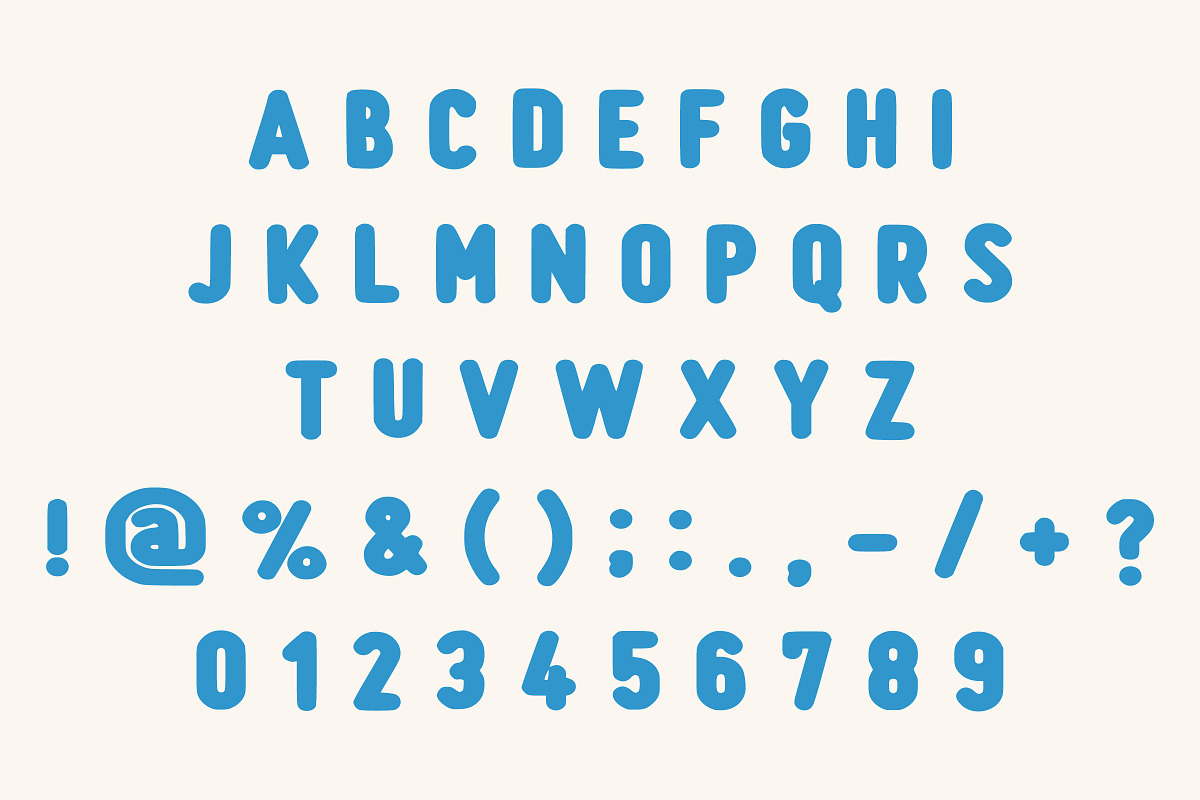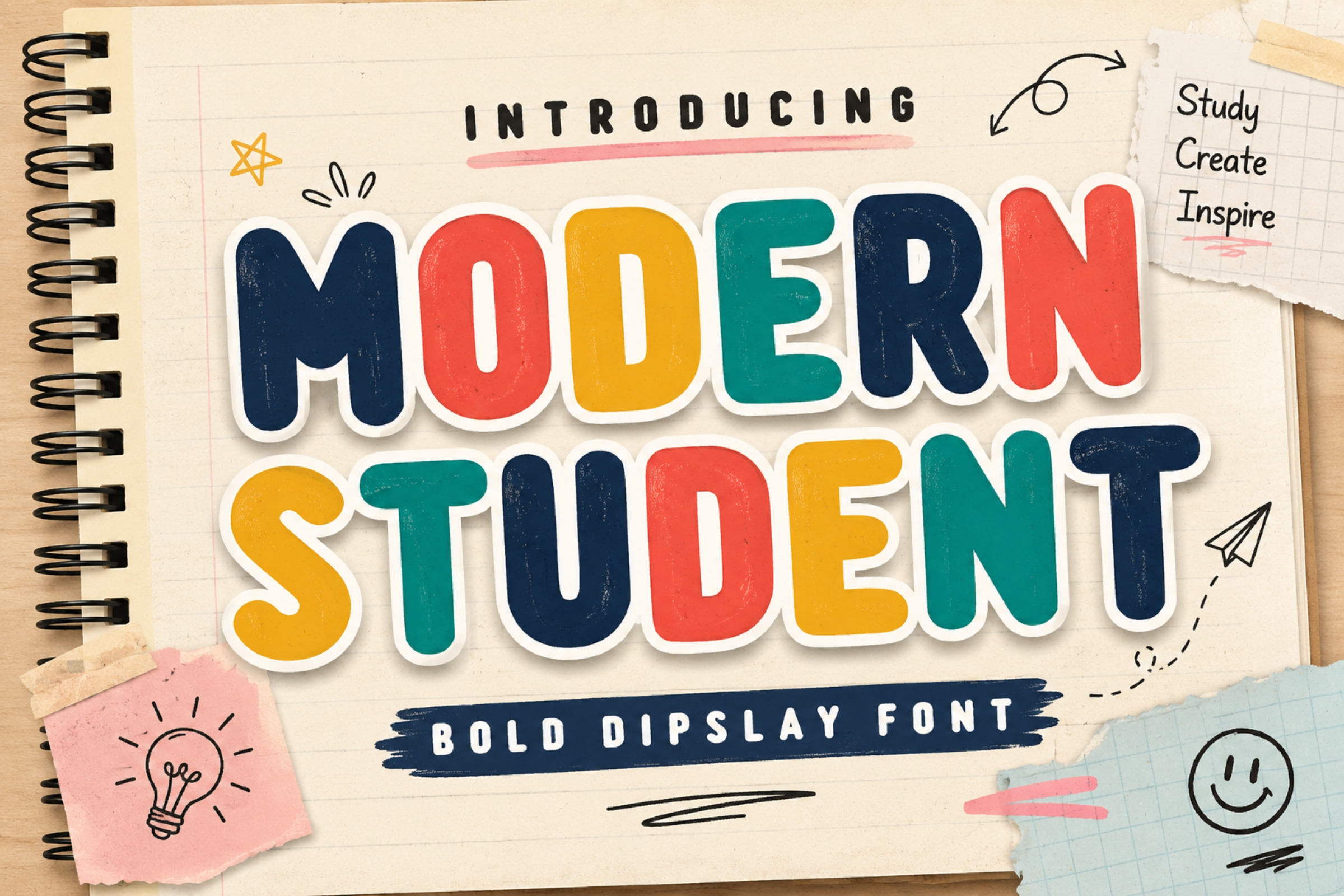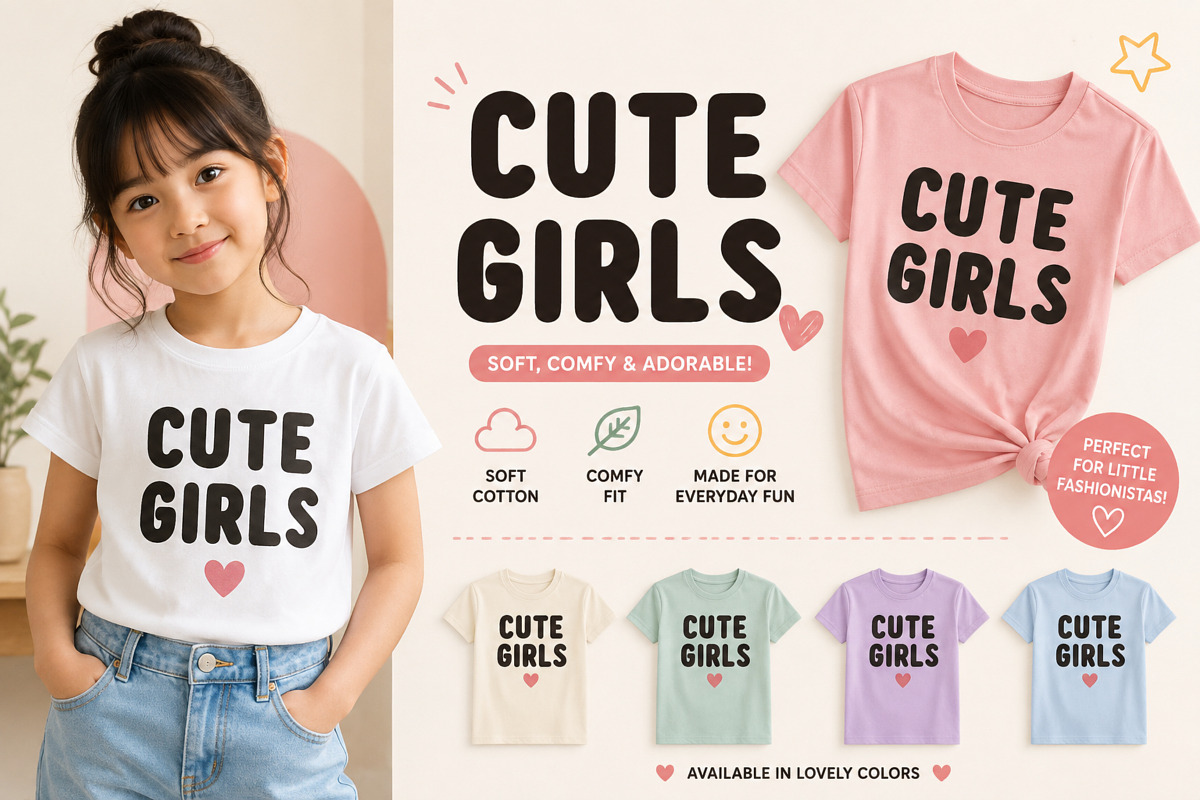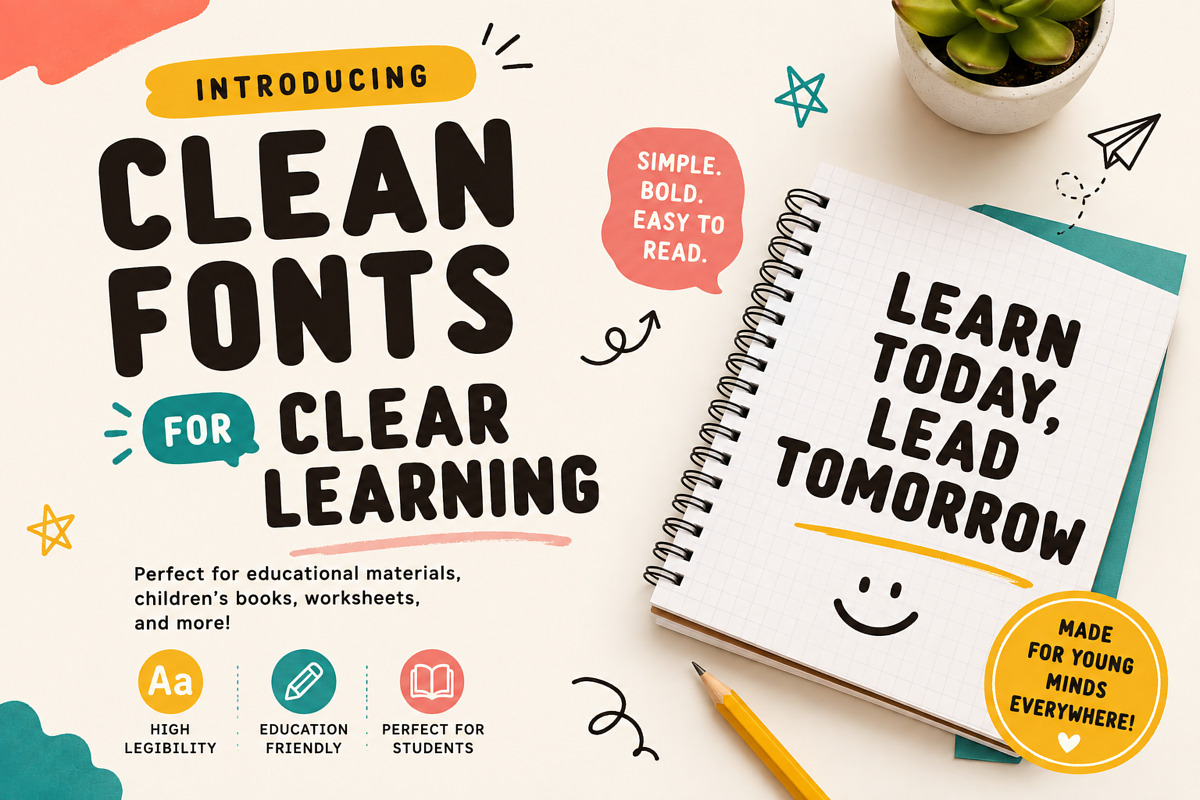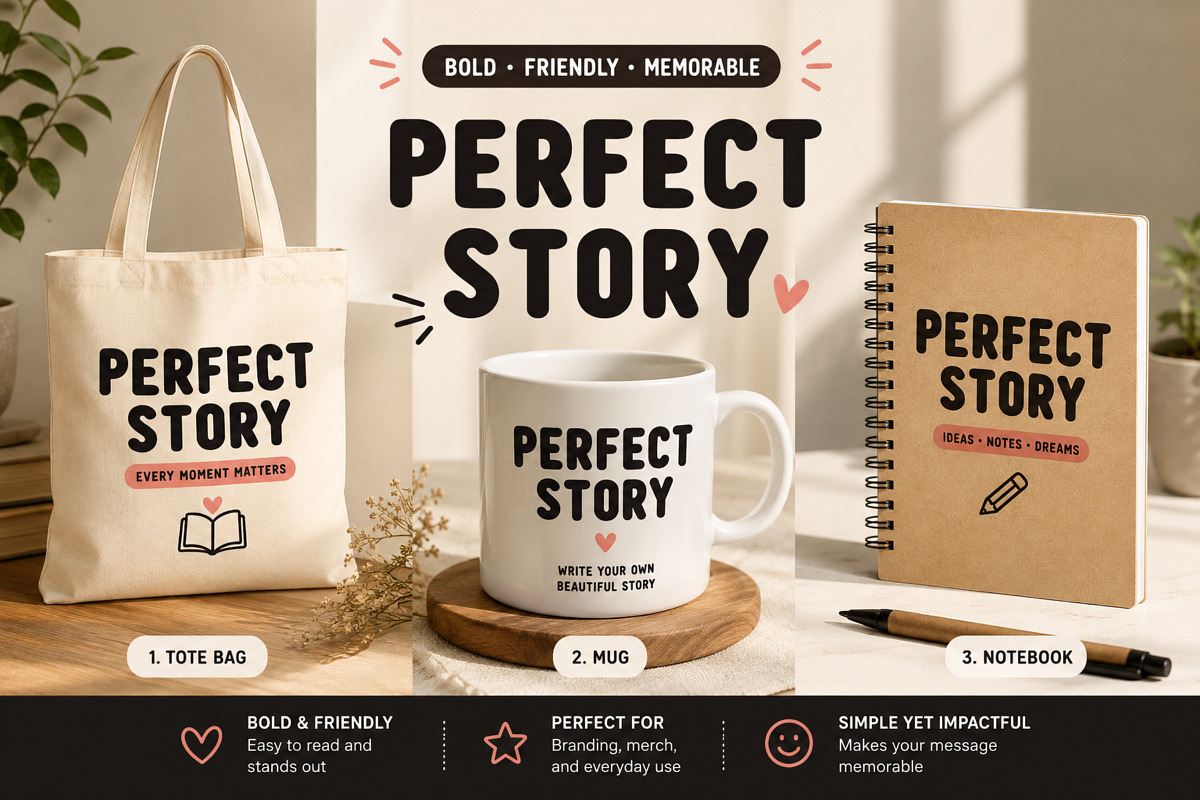
Modern Student – Cute Bold Font
Meet Modern Student, a bold display typeface inspired by playful handwriting and modern classroom creativity.
Designed with smooth rounded edges and excellent readability, this font is ideal for projects aimed at children, education, branding, and merchandise.
Its cheerful personality makes it a perfect choice for creating eye-catching titles, logos, packaging, posters, worksheets, classroom decorations, apparel, stickers, and digital content.
Ideal For
School Branding
Education Templates
Children's Books
Preschool Graphics
Kindergarten Designs
Teacher Resources
Posters
Packaging
Labels
Stickers
T-shirts
Hoodies
Tote Bags
Mugs
Sublimation
Cricut & Silhouette
YouTube Graphics
Instagram Posts
Printable Designs